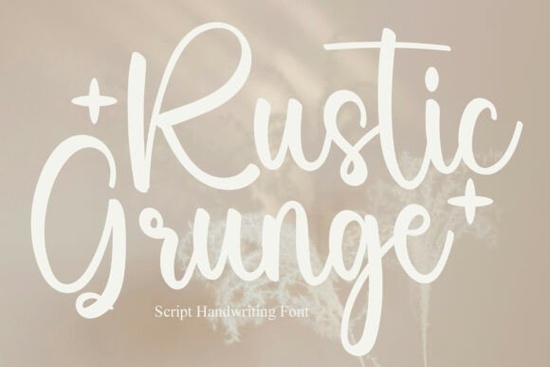
When you need a typeface that balances hand-drawn warmth with a slightly worn, authentic feel, Rustic Grunge Font delivers exactly that. It is a script handwriting font built for designers, crafters, and small business owners who want their text to look hand-lettered without losing readability. The fluid strokes pair well with bold textures, giving you a reliable tool for branding, packaging, and digital prints. You can install it once and use it across multiple design platforms, which saves time when working on tight client deadlines.
How does a rustic grunge script fit into real design projects?
Many creative professionals struggle to find script typefaces that hold up in both print and screen formats. This typeface solves that problem by keeping its curves clean while adding subtle distress to the edges. You can use it for logos, wedding invitations, apparel tags, and coffee shop menus. The commanding strokes make it easy to pair with simpler geometric typefaces, which keeps your layout balanced. If you run a print-on-demand shop, this lettering performs well on tote bags and wooden signs because it reads naturally from a distance.
When building your brand library, you might want to browse similar grunge scripts to see how different weights behave on contrasting backgrounds. Pairing a textured script with a clean base font maintains visual hierarchy without overwhelming viewers.
What makes this handwriting style stand out from other script options?
The key difference lies in the stroke variation. Instead of uniform thickness, the letters shift between thick downstrokes and thinner connectors. That change mimics real pen pressure, which works well for authentic branding and handcrafted product listings. The dynamic flow prevents the text from looking stiff, while the slight roughness adds character that standard digital fonts lack.
How should you format and space script text for best results?
Script typefaces require careful spacing to stay legible. Avoid stacking letters too tightly, and never use this style for body text. Reserve it for headlines, quotes, product names, and short taglines. Add padding around the letters so the distressed edges do not overlap with other elements. For cutting machines or laser engraving, trace the vector paths cleanly to remove overlapping noise.
What should you check before sending files to print?
- Test the script at actual print size to confirm readability
- Leave extra tracking between letters to avoid muddy edges
- Convert text to outlines before sending to printers or cutters
- Check contrast against your background color
Start with a simple headline mockup, adjust spacing, and print a proof on your chosen material. Small tweaks in opacity or backdrop often improve hand-drawn scripts. Once you see how the strokes interact with your layout, scale up to full product lines. Testing early prevents reprints and keeps your workflow moving.